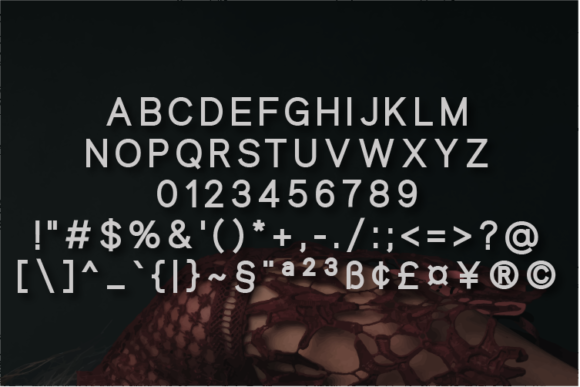
Introducing Colbey Extra Black Font: Elevate Your Design with Elegance
In the world of typography, fonts play a crucial role in conveying messages, setting tones, and creating visual identities. For designers, crafters, and anyone looking to make a statement, finding the right font can be a game-changer. This is where Colbey Extra Black comes into play – an elegant, contemporary sans serif font that is redefining the way we approach design.
The Essence of Colbey Extra Black
Colbey Extra Black is not just another font; it’s an experience. Designed with a clean and stylized geometry, this font boasts soft edges that give it a unique, approachable feel. Its harmonious appearance makes it perfect for both texts and headlines, offering versatility that is hard to find in the digital age.
Key Features of Colbey Extra Black
- Elegant and Contemporary Design: Colbey Extra Black is at the forefront of modern typography. Its sleek lines and soft edges make it a standout in any design.
- Clean and Stylized Geometry: The font’s geometric precision ensures clarity and readability, making it ideal for a wide range of applications.
- Versatility: Whether you’re working on branding, logos, web design, or any other project, Colbey Extra Black adapts seamlessly, ensuring your message is conveyed with style and sophistication.
- Harmonious Appearance: The font’s design ensures that it looks great not just in headlines but also in body text, providing a consistent aesthetic that elevates your work.
Applications of Colbey Extra Black
The applications of Colbey Extra Black are vast and varied. Here are some areas where this font truly shines:
- Branding: Create a lasting impression with a font that exudes professionalism and elegance. Colbey Extra Black can be the cornerstone of your brand’s typography.
- Logos: A logo is often the first thing people notice about a brand. With Colbey Extra Black, you can create a logo that is not only memorable but also timeless.
- Web Design: In the digital realm, typography is crucial for user experience. Colbey Extra Black offers a clean, readable, and engaging look that enhances any website.
- Print Design: From brochures to business cards, this font ensures your print materials stand out with its unique blend of elegance and modernity.
Why Choose Colbey Extra Black?
In a sea of fonts, Colbey Extra Black offers something distinct – a blend of style, versatility, and readability. Here are a few reasons why it should be your go-to font:
- Unique Aesthetic: Its soft edges and geometric design offer a fresh alternative to traditional sans serif fonts.
- Wide Applicability: From digital platforms to print, Colbey Extra Black adapts well, ensuring consistency across all your design projects.
- Enhanced Readability: Despite its stylized appearance, the font maintains high readability, making it suitable for both headings and body text.
Colbey Extra Black is more than just a font – it’s a design statement. Its elegant, contemporary look, combined with its versatility and readability, makes it an invaluable tool for designers and crafters. Whether you’re looking to elevate your brand, create a memorable logo, or simply enhance your web or print designs, Colbey Extra Black is the perfect choice. Embrace the elegance and make your designs stand out with Colbey Extra Black.